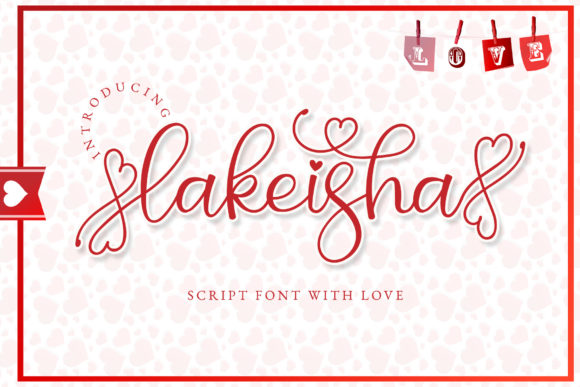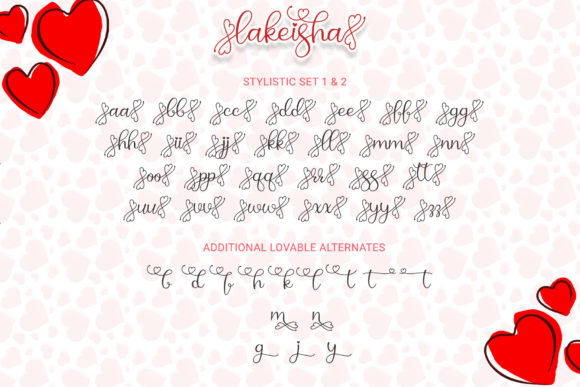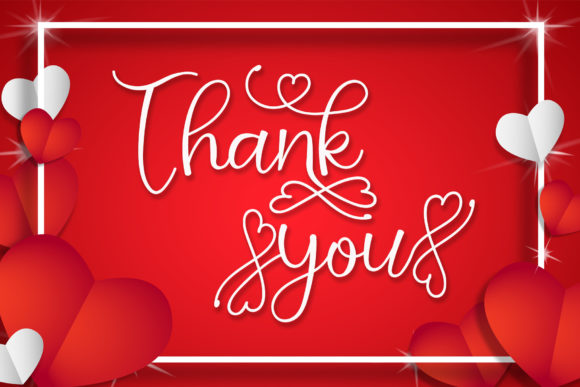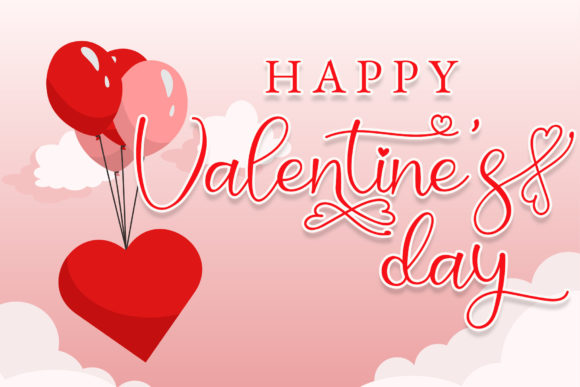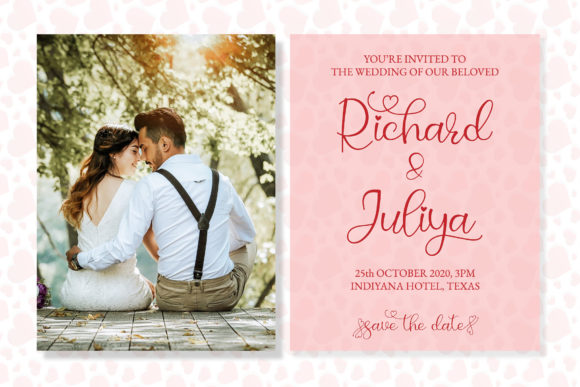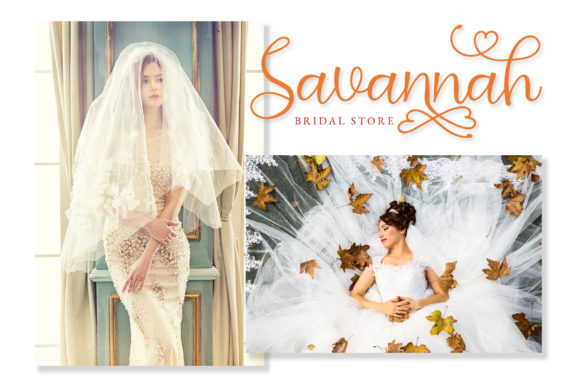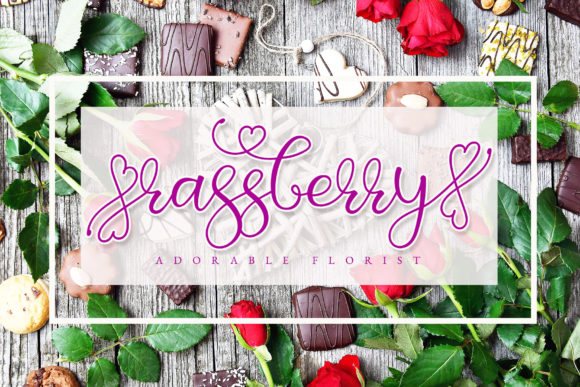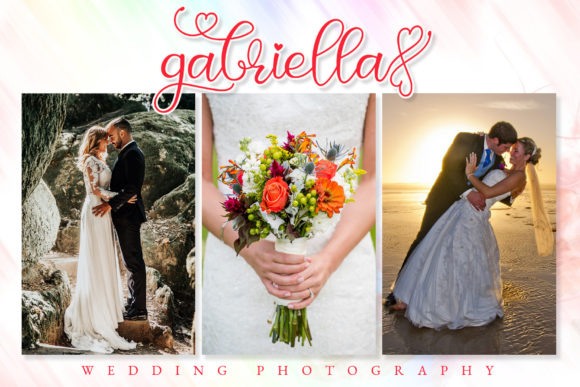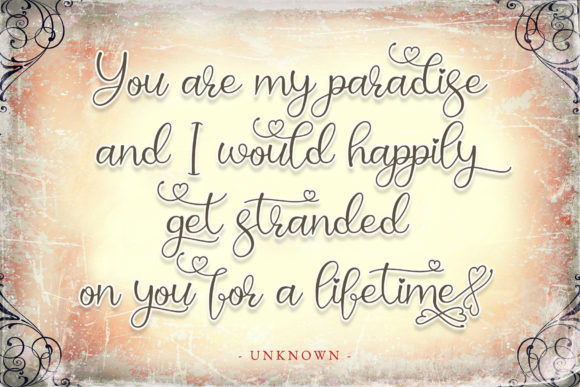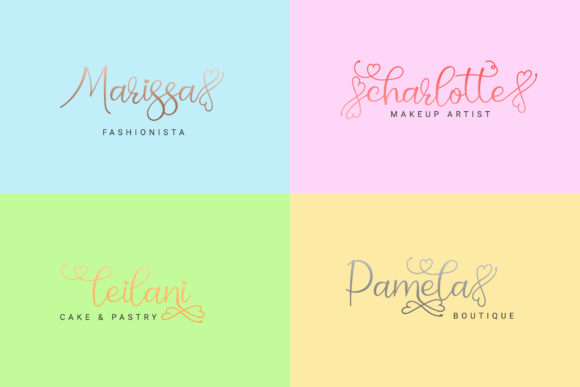
Lakeisha Font
About Lakeisha Font
Lakeisha is lovely script font with a modern love theme. This font will add a romantic feel into your design with its heart-themed swashes.